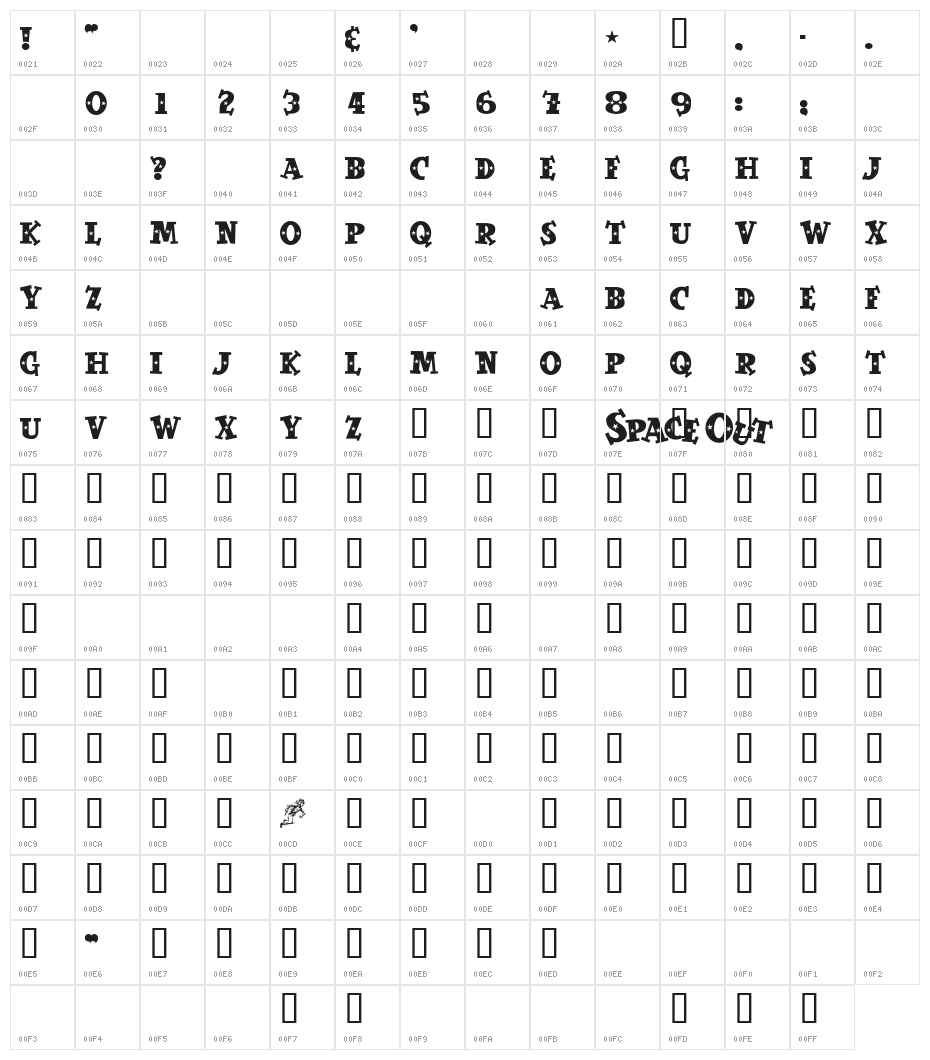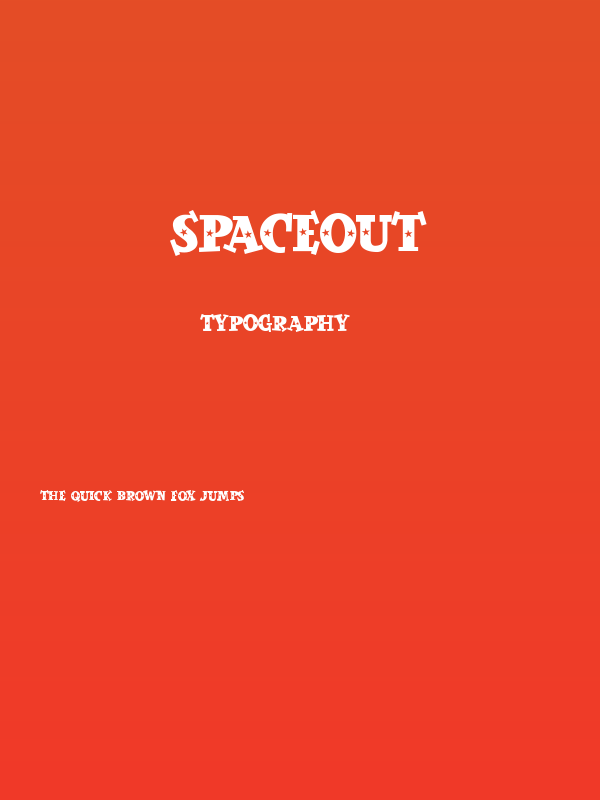
SpaceOut Font
SpaceOut Description
This font features a playful and bold design, characterized by its unique star cutouts within each character. The letters are thick and robust, with a slight tilt that adds a dynamic and whimsical feel. The stars embedded in the characters give it a celestial theme, making it stand out as a decorative choice. The font maintains a consistent weight throughout, ensuring readability while still offering a distinctive style. Its bold appearance makes it suitable for attention-grabbing headlines or creative projects that require a touch of fun and imagination.
| Proposed Projects | Ideal for children's book covers, party invitations, space-themed events, or any project needing a fun, decorative touch. |